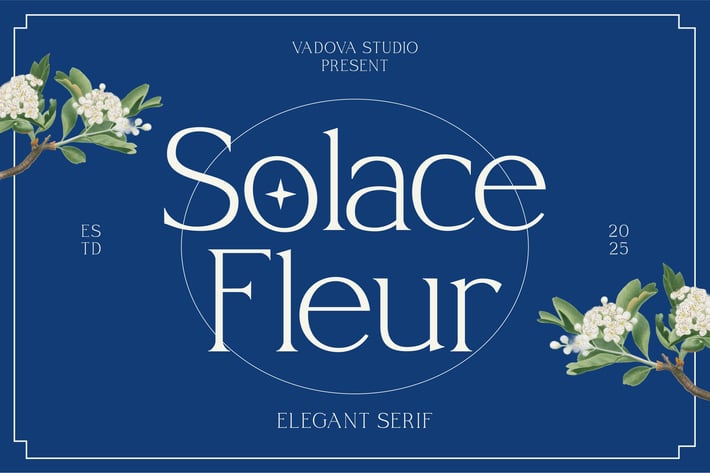
Solace Fleur Serif Font
Solace Fleur is an elegant serif font with a modern and refined aesthetic, subtly infused with a floral-inspired touch. Its letterform structure features graceful serifs and flowing lines, creating a sophisticated and gentle vibe. This font is particularly well-suited for branding in the beauty and lifestyle markets, editorial designs for fashion magazines seeking a delicate touch, and wedding stationery aiming for timeless elegance. Its refined nature also makes it ideal for high-end packaging and sophisticated social media visuals
Main Features
Uppercase & Lowercase characters
* Numeral & Punctuations
Solace Fleur Suitable for Beauty product branding, high-end fashion magazines, elegant wedding invitations, sophisticated stationery, luxury packaging design, refined website typography, upscale branding projects, delicate cosmetic labels, graceful editorial layouts, boutique branding, floral-themed designs, feminine branding, jewelry brand aesthetics, spa and wellness branding, sophisticated social media graphics, art and design publications, perfume and fragrance branding, soft and romantic designs, high-quality product descriptions, and refined corporate communications.